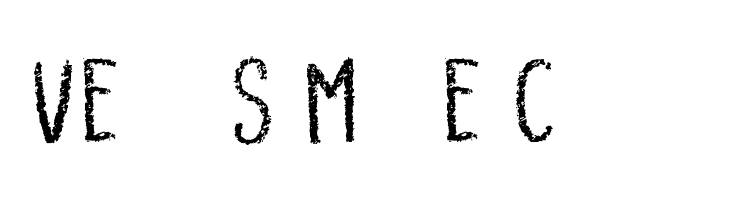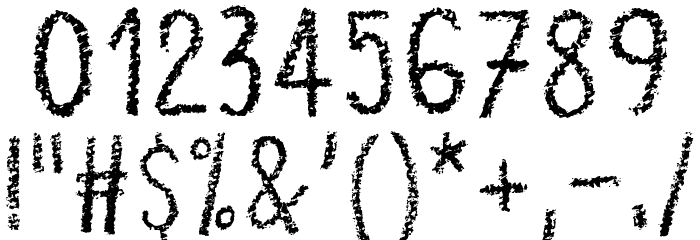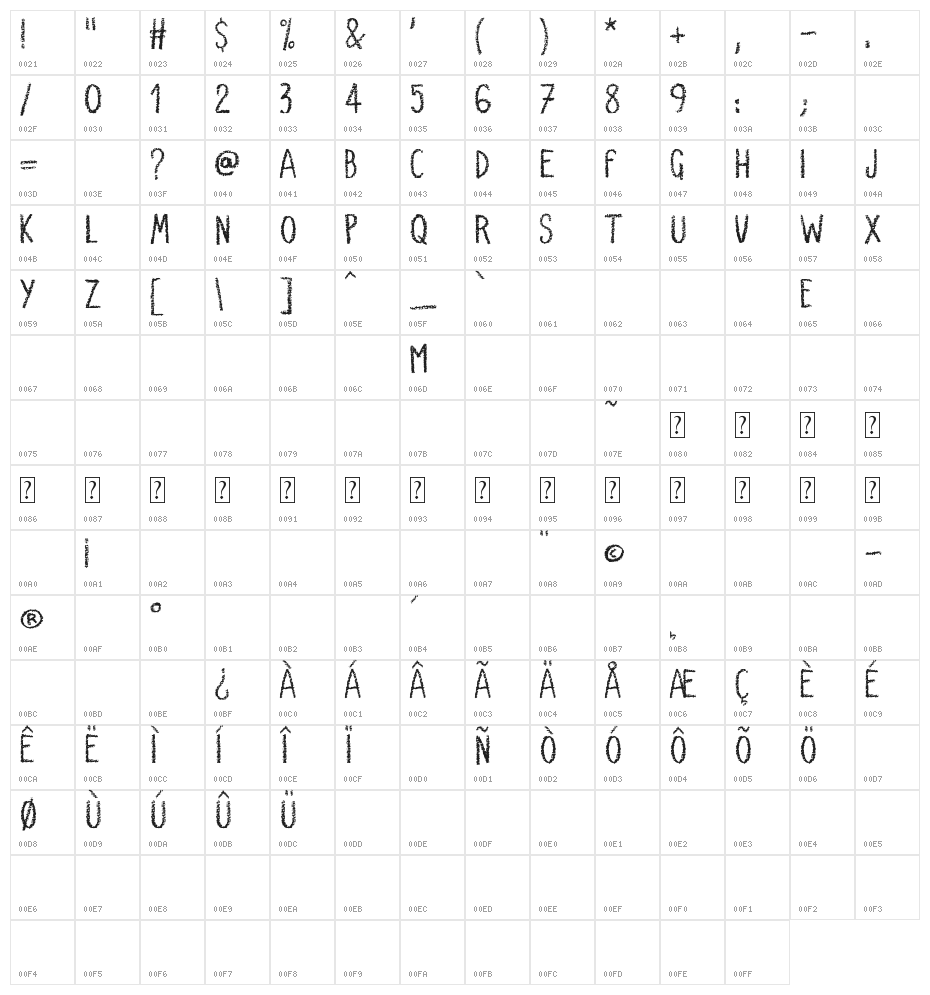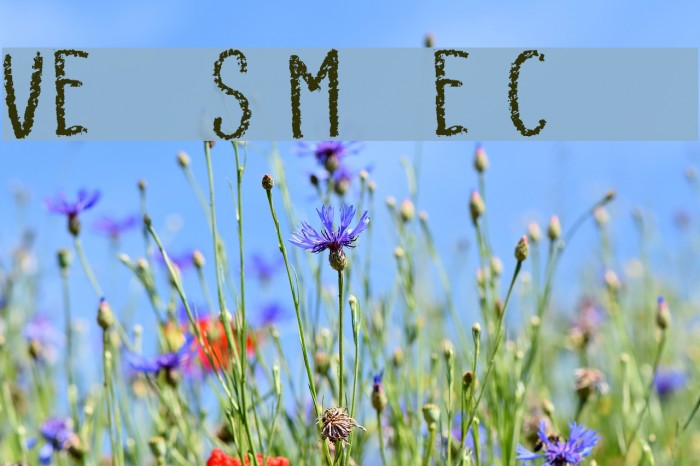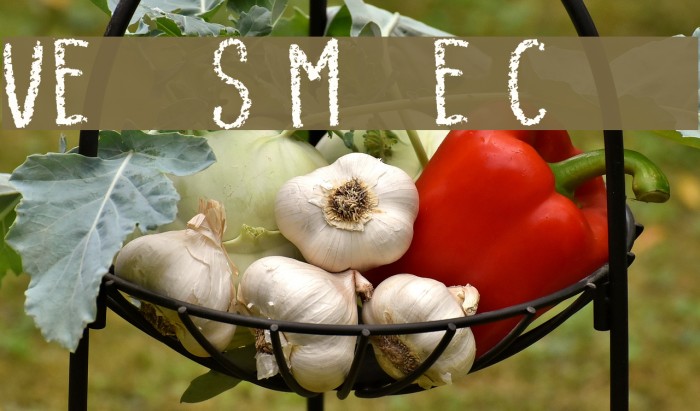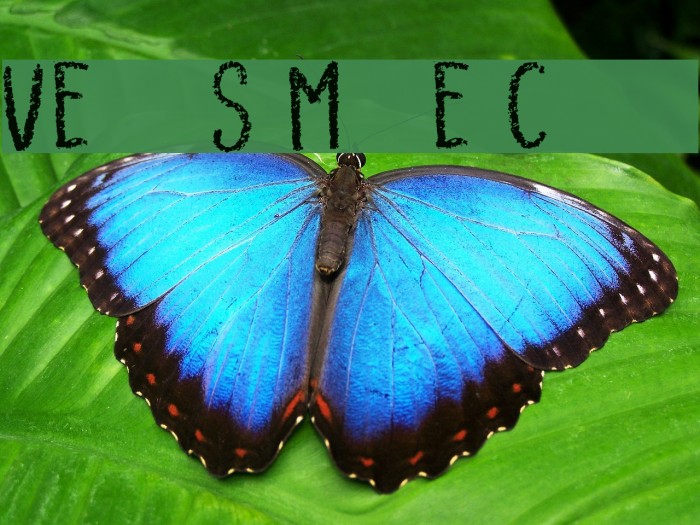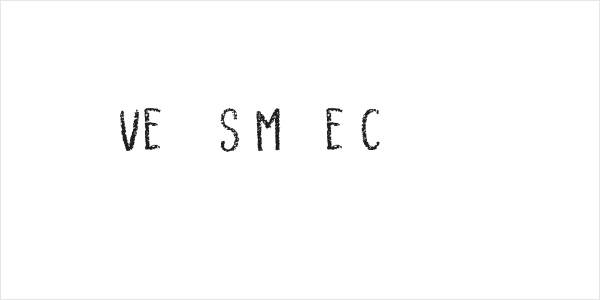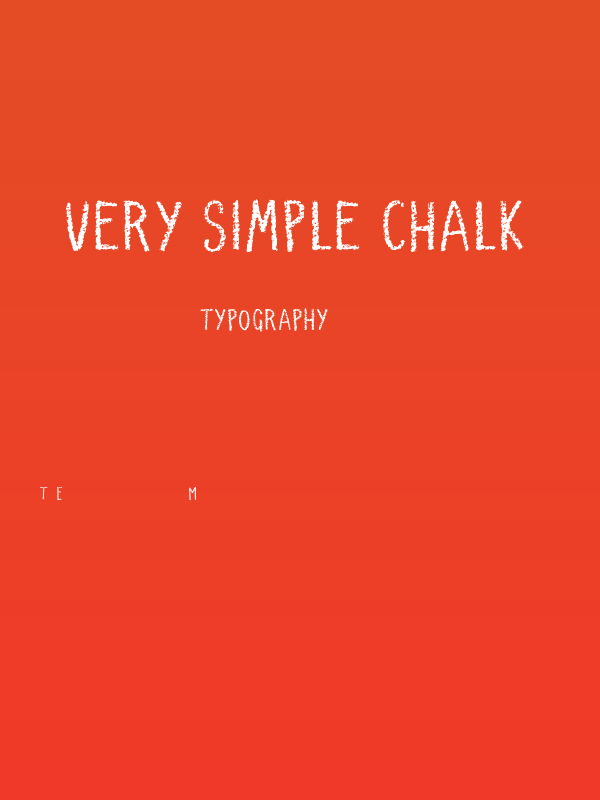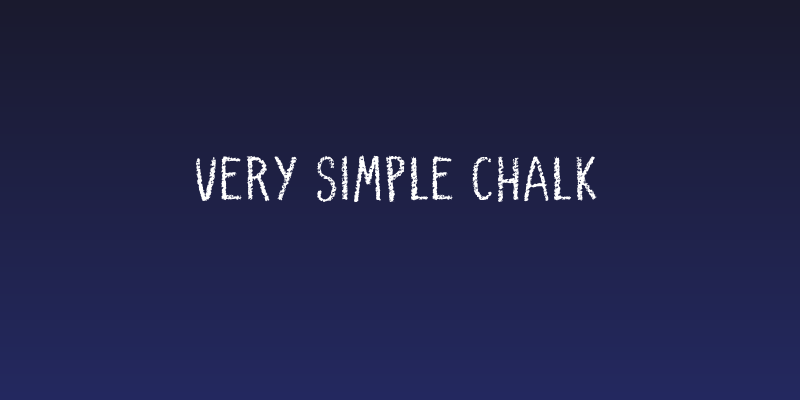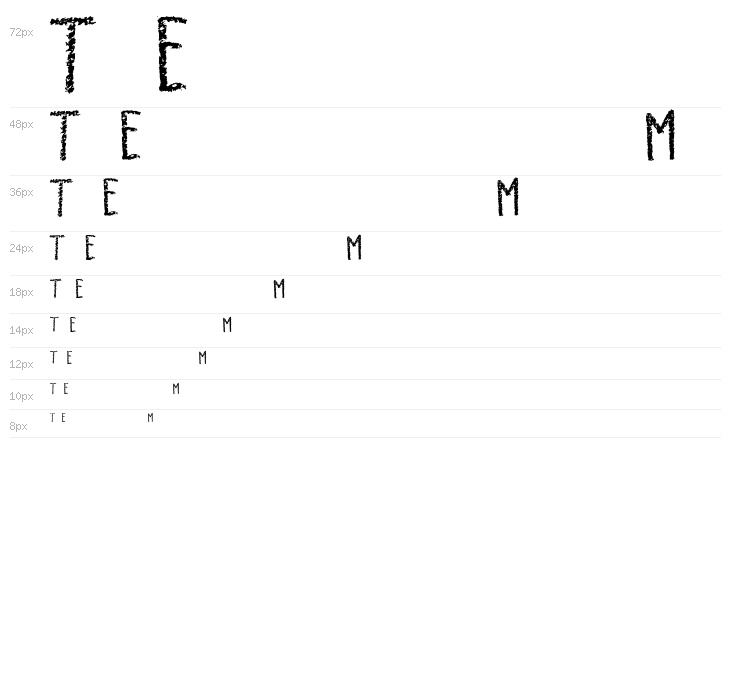
Very Simple Chalk Font
Very Simple Chalk Description
This font embodies a playful and informal style, reminiscent of chalk writing on a blackboard. Each character features a textured, uneven appearance, giving it an authentic hand-drawn look. The uppercase letters are bold and slightly irregular, while the lowercase letters maintain a consistent style with a similar rough texture. Numbers and special characters follow the same design, ensuring a cohesive appearance across all glyphs. The font's unique texture and casual style make it ideal for projects that require a personal touch or a creative, informal vibe.
| Use Case | Headlines, Posters, Creative Projects |
| Proposed Projects | Ideal for educational materials, children's books, creative posters, and DIY projects. |